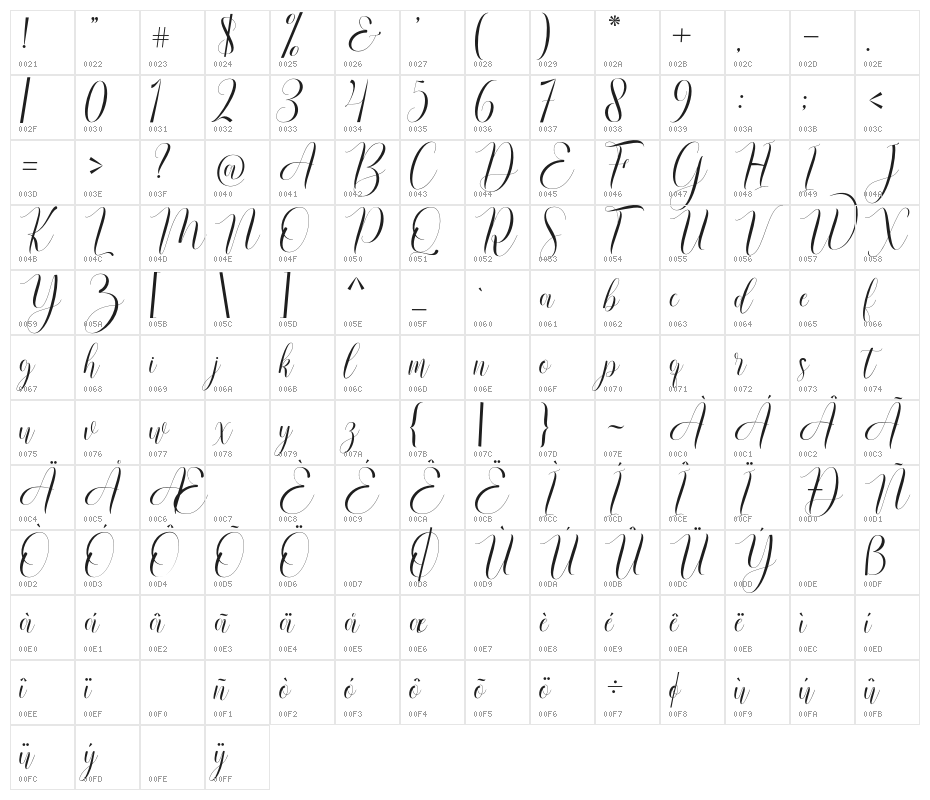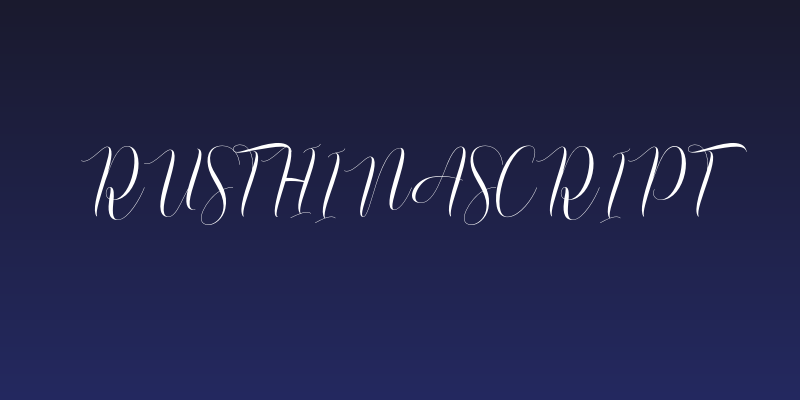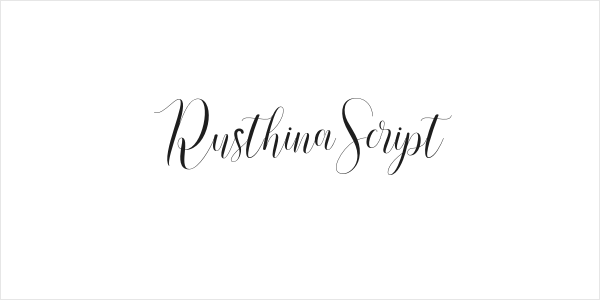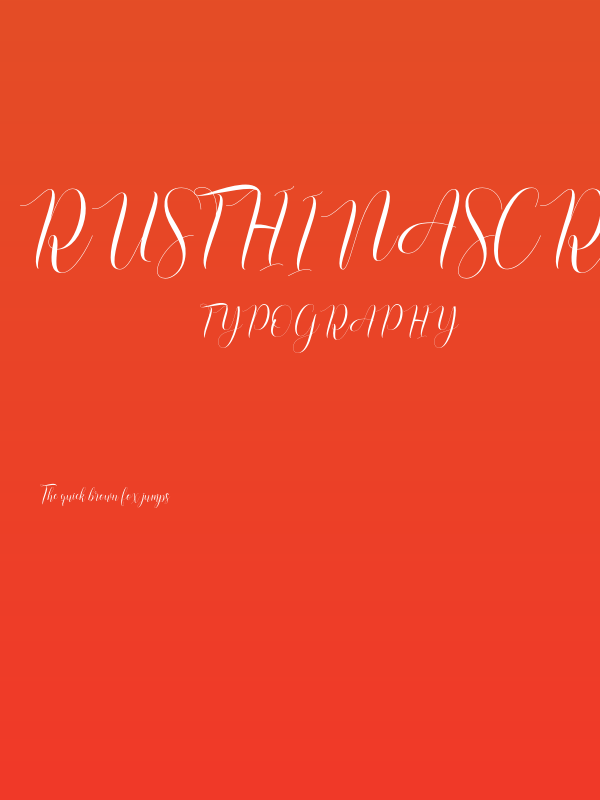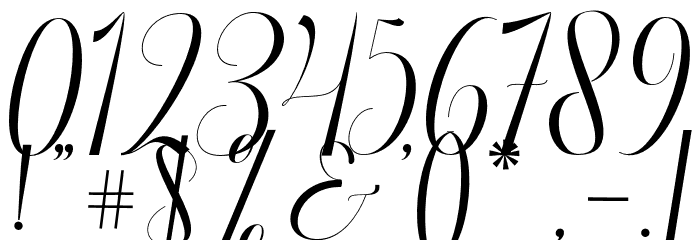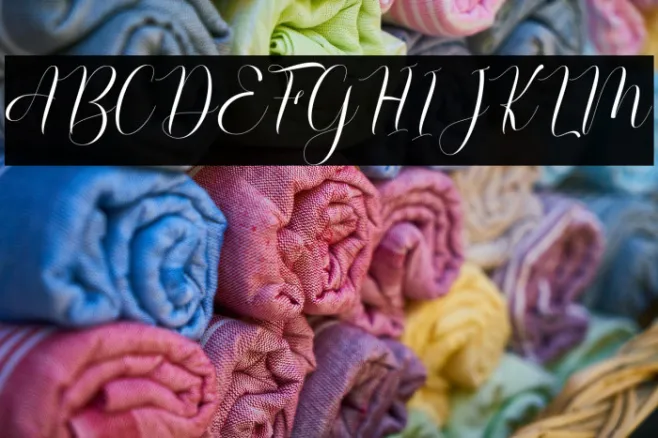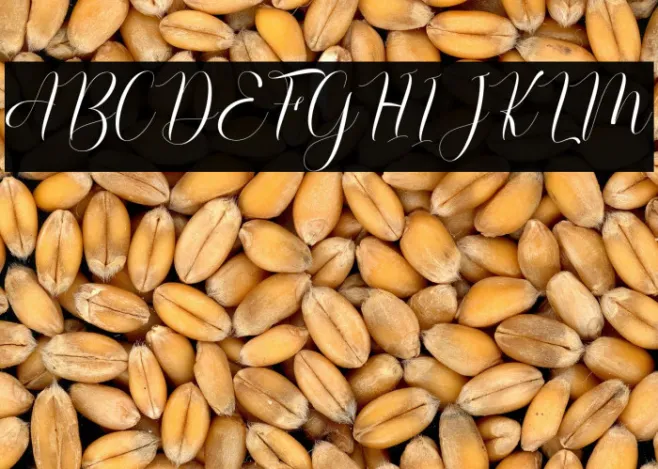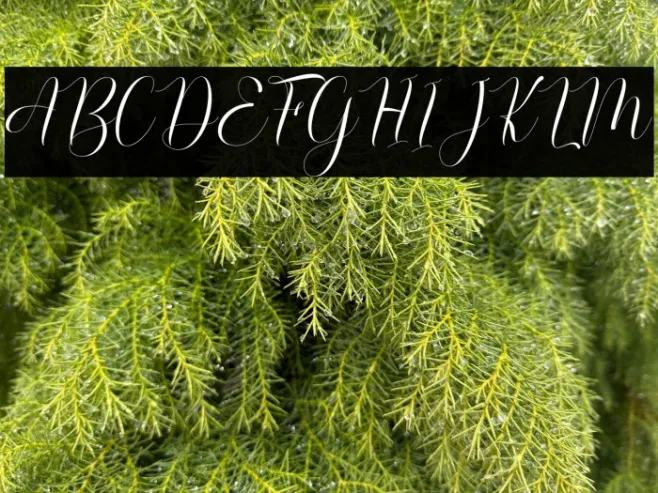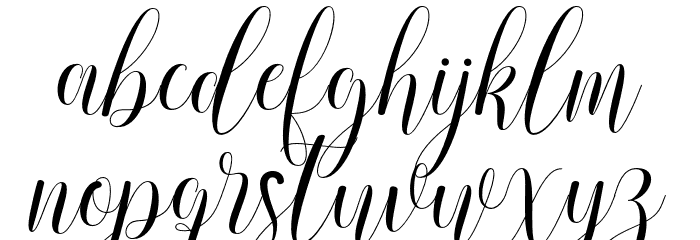
RusthinaScript Font
RusthinaScript Description
This elegant script font features a flowing, cursive style with high contrast between thick and thin strokes. The uppercase letters are ornate and sweeping, while the lowercase letters maintain a graceful continuity, making it ideal for formal invitations and elegant branding. The numerals and special characters are designed with the same fluidity, ensuring a cohesive look across all text elements. The font's delicate curves and loops give it a sophisticated and luxurious feel, perfect for projects that require a touch of class and refinement.
| Proposed Projects | Ideal for wedding invitations, luxury branding, elegant stationery, and high-end product packaging. |